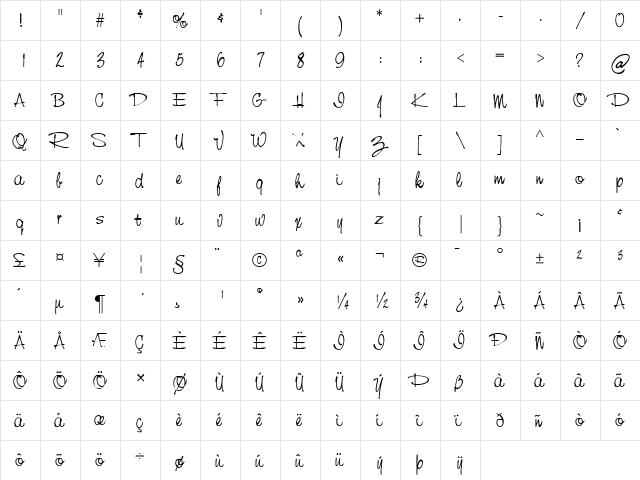
NevisonCasualSB-Regular Regular
| Foundry | Veronika Elsner, Guenther Flake GbR, Hamburg |
Design Context for NevisonCasualSB-Regular Typeface
NevisonCasualSB-Regular is a composed and adaptable typeface that performs quietly and consistently across a wide range of design contexts.